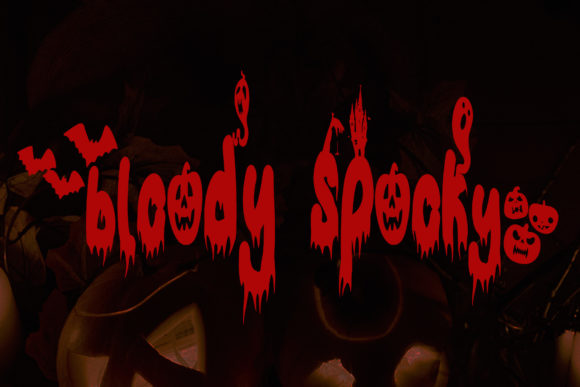
Bloody Spooky Font
**Embark on a Haunted Adventure with Bloody Spooky Font: Unveil the Spooktacular Essence of Halloween**
Prepare to be spellbound by Bloody Spooky Font, a typographic masterpiece that will cast a magical spell on your Halloween creations. This enchanting decorative font is meticulously crafted with thick, haunting letters that will send shivers down your spine and ignite the spirit of the season.
As you delve into the depths of Bloody Spooky Font, you'll discover a world of spine-tingling possibilities. Its eerie elegance is perfect for conjuring up invitations that will make your guests tremble with anticipation or crafting spine-chilling posters that will evoke the thrill of a haunted house. The possibilities are endless, limited only by the depths of your imagination.
But what truly sets Bloody Spooky Font apart is its remarkable versatility. Whether you're a seasoned designer or a creative enthusiast, this font will effortlessly elevate your projects to new heights of spooktacular sophistication. Its PUA encoding grants you effortless access to a treasure trove of glyphs and swashes, empowering you to unleash your creativity without bounds.
So, if you dare to embrace the spirit of Halloween, let Bloody Spooky Font guide you on a spine-tingling typographic adventure. Its enchanting essence will ignite your imagination and leave your audience spellbound.
**Unleash the Spooktacular: Why Bloody Spooky Font is a Must-Have for Your Halloween Arsenal**
* **Conjure Captivating Invitations:** Send shivers of excitement down your guests' spines with invitations adorned with Bloody Spooky Font. Its eerie elegance will set the tone for an unforgettable Halloween celebration.
* **Craft Spine-Chilling Posters:** Summon the thrill of a haunted house with posters that scream Halloween. Bloody Spooky Font's haunting letters will evoke the spirit of the season, leaving a lasting impression.
* **Create Bewitching Social Media Graphics:** Cast a spell on your social media followers with graphics that feature Bloody Spooky Font. Its captivating presence will draw attention and create a buzz around your Halloween campaign.
* **Design Enchanting Halloween Merch:** Unleash your creativity and conjure up bewitching Halloween merchandise featuring Bloody Spooky Font. Its versatility will enable you to create everything from T-shirts to tote bags that will make your customers scream with delight.
Embrace the power of Bloody Spooky Font and let your imagination run wild this Halloween. Its captivating presence will add a touch of spine-tingling sophistication to all your creative endeavors, leaving a lasting impression that will haunt your audience long after the season has passed.